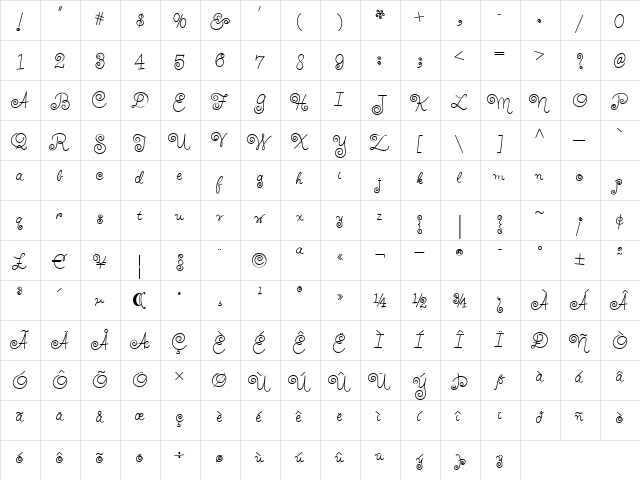
Whirled Peas NF Regular
Design Context for Whirled Peas NF Typeface
Whirled Peas NF is a composed and adaptable typeface that performs quietly and consistently across a wide range of design contexts.